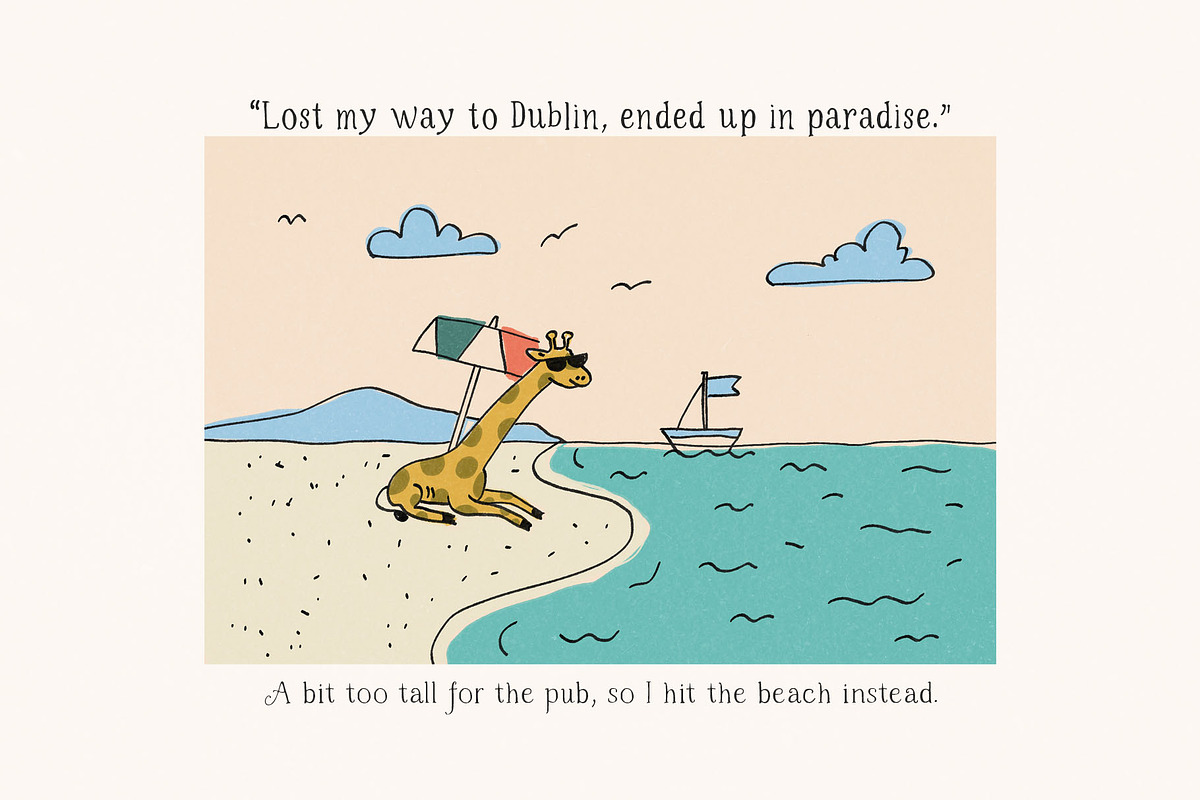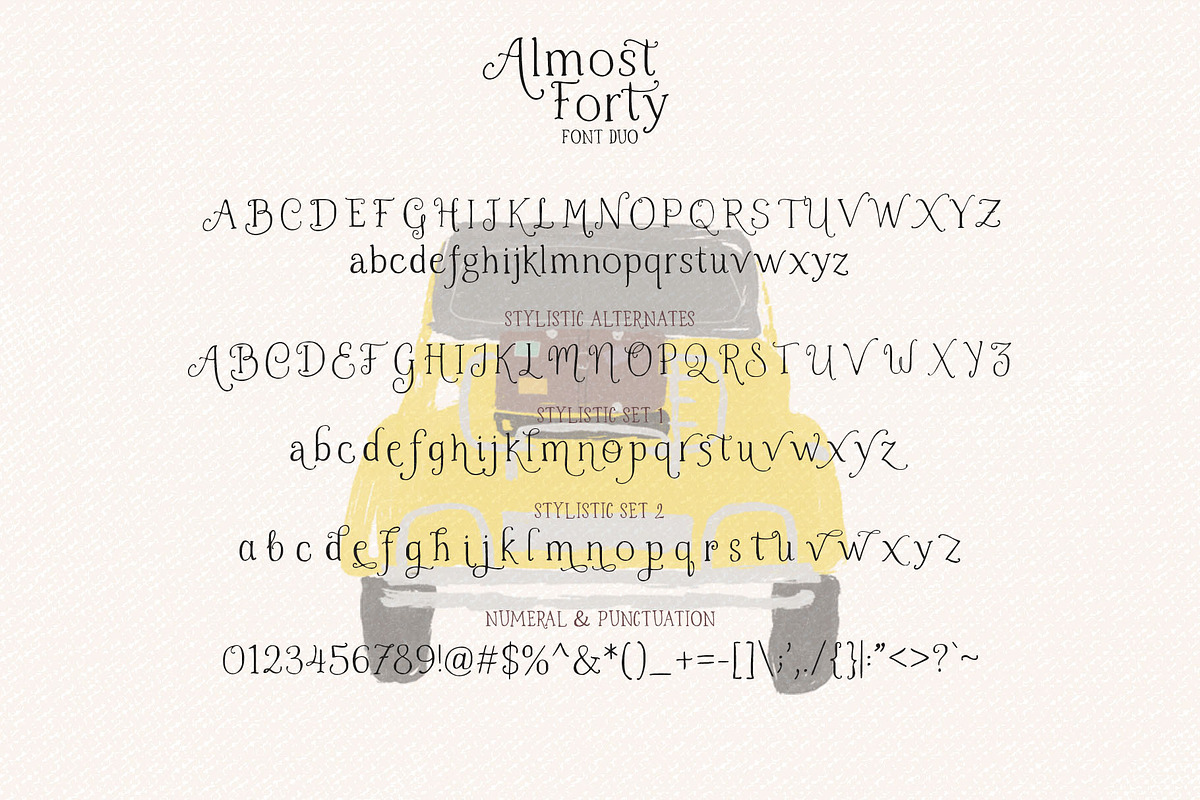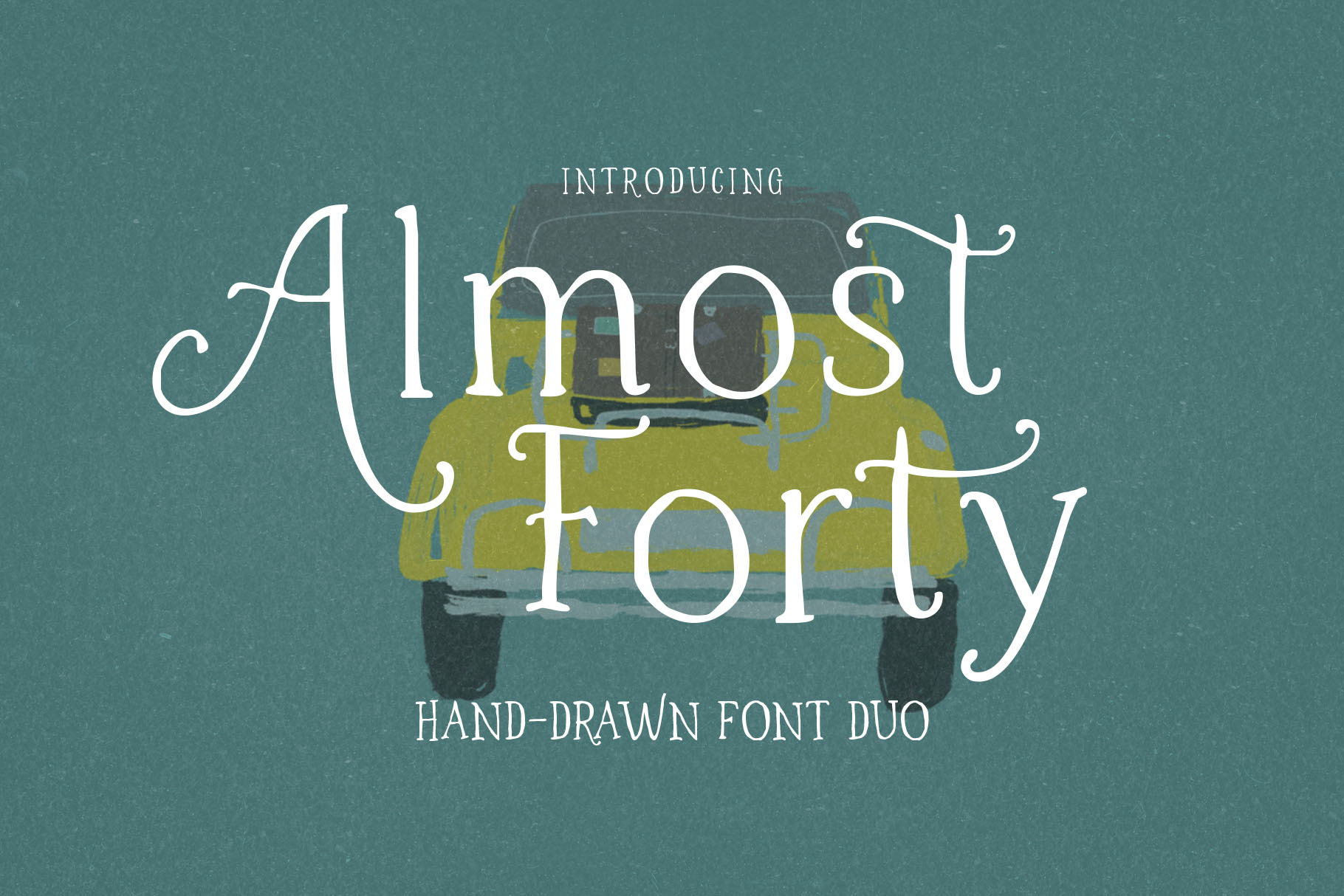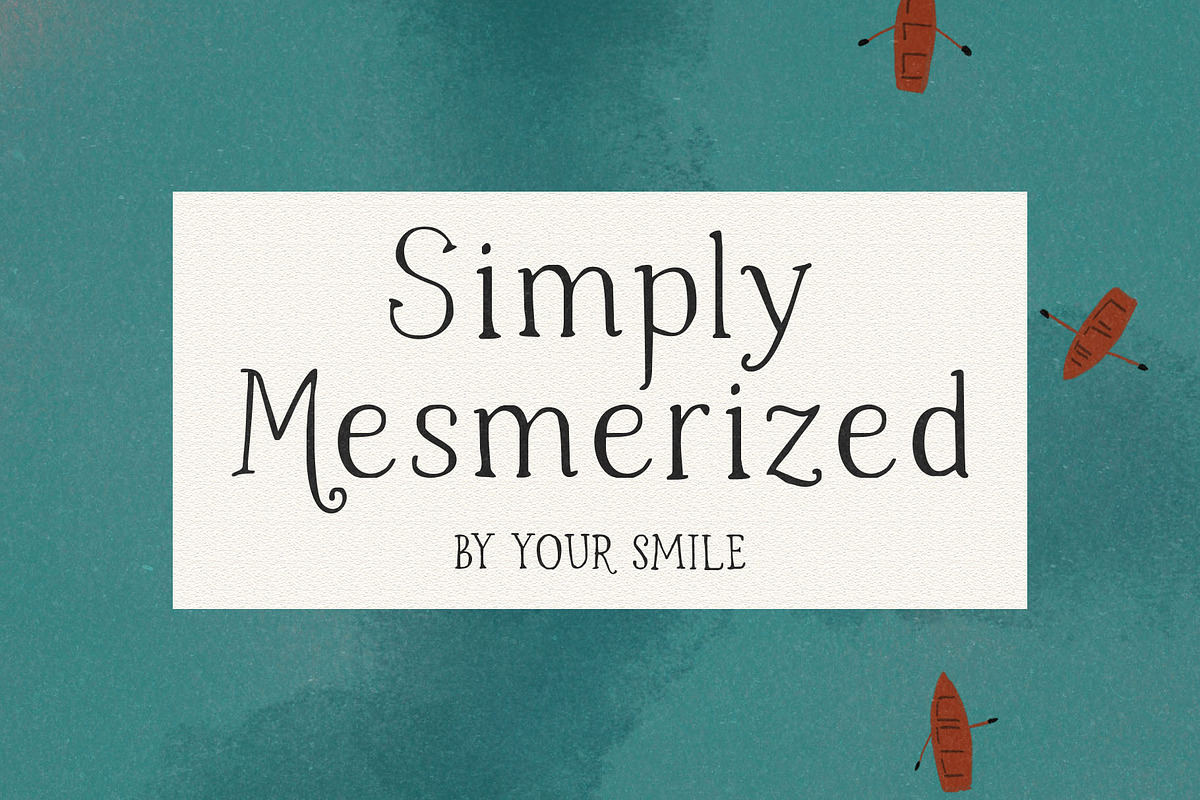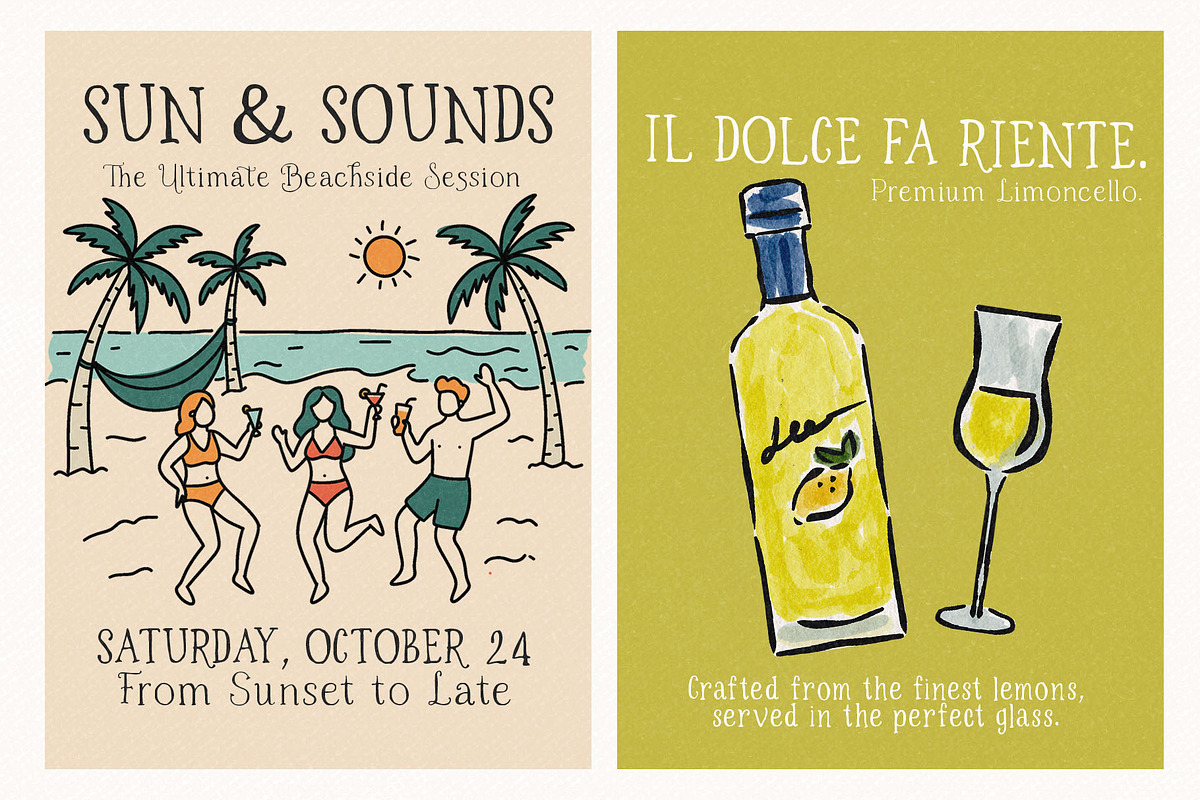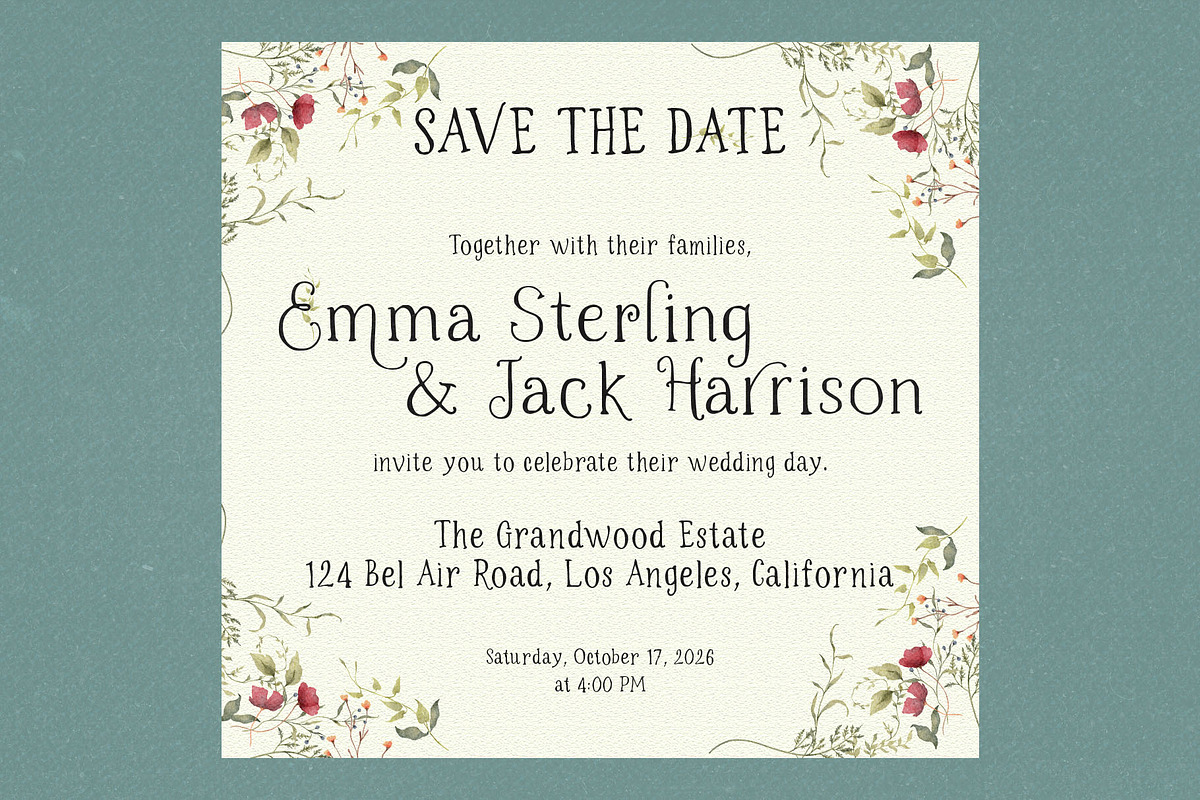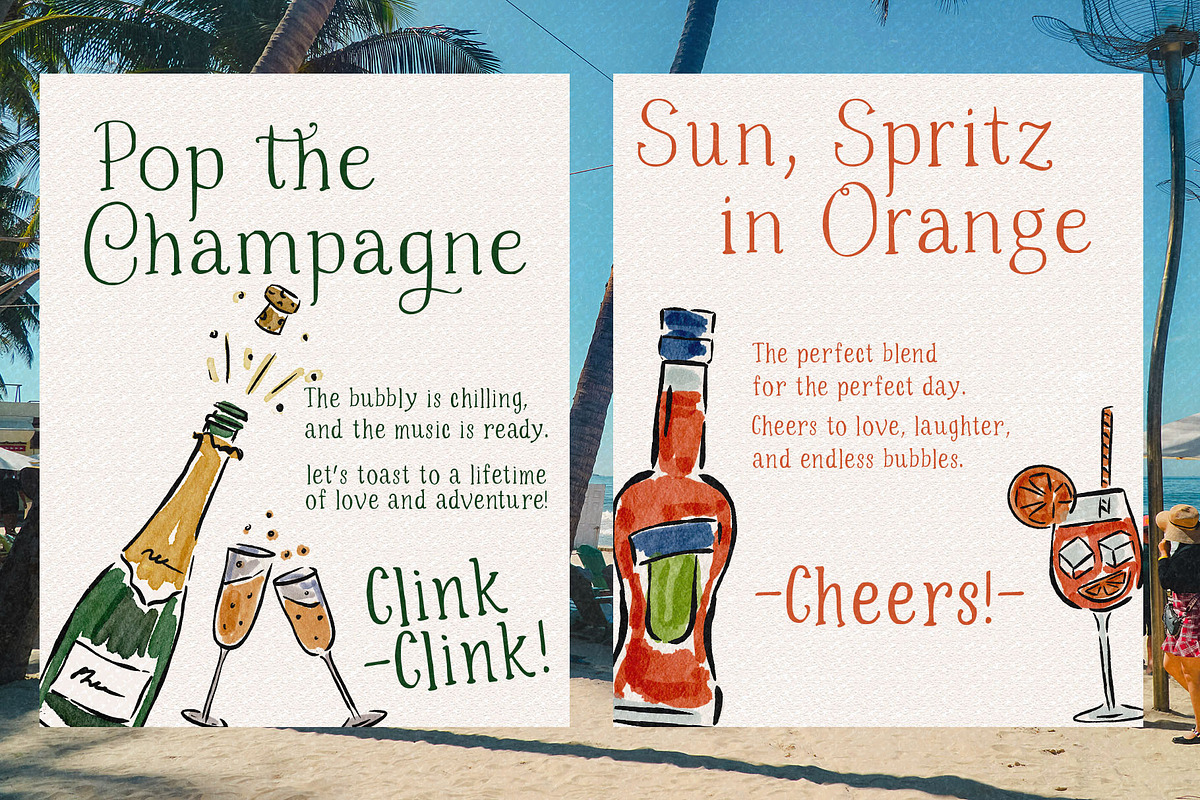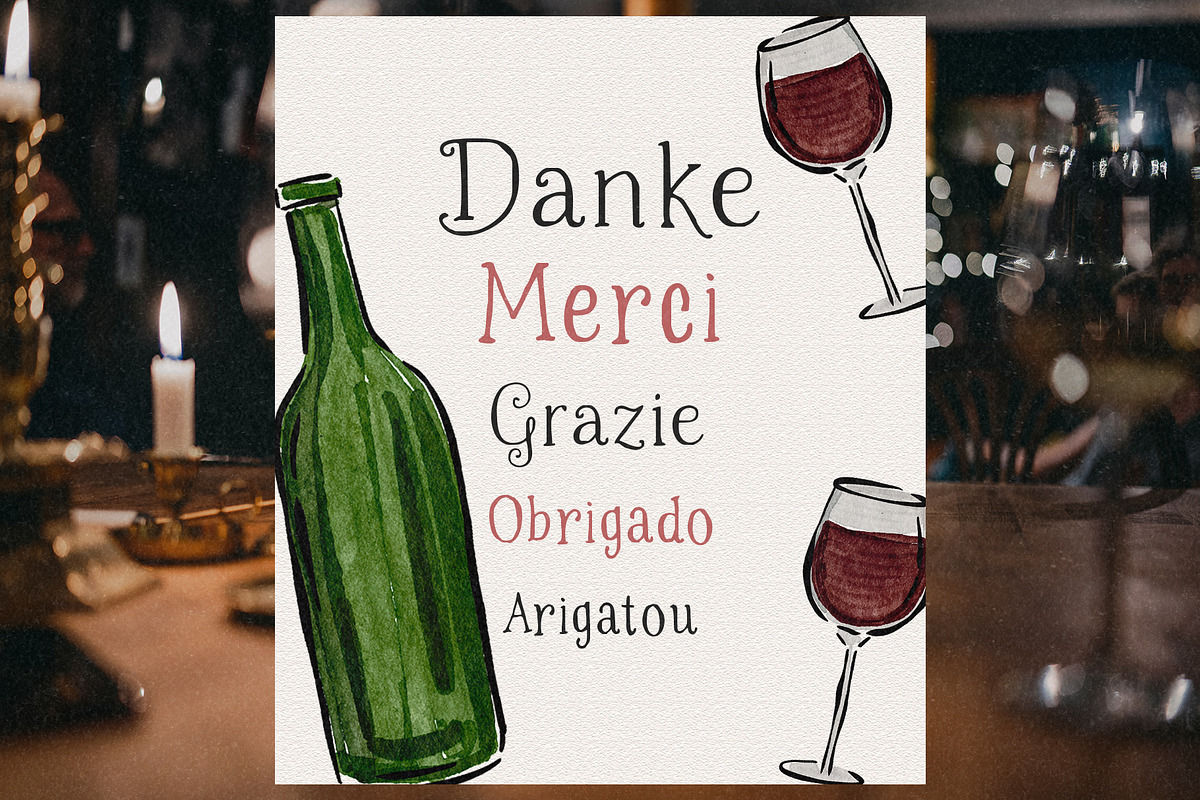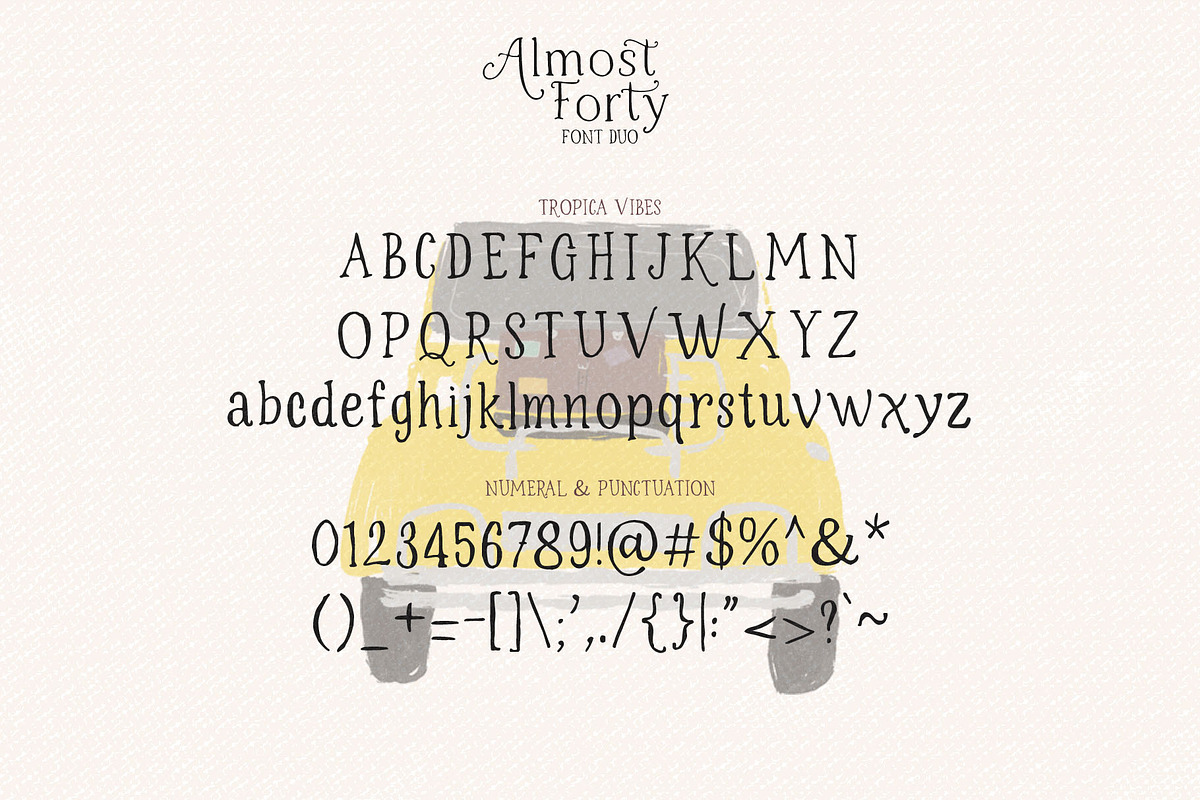
Almost Forty – Dual Font Set
Celebrate the beauty of perfectly imperfect design with Almost Forty, a premium dual-font collection crafted to bring authentic charm and laid-back energy to your projects. This set combines two distinct, hand-drawn styles that complement each other flawlessly.
Almost Forty: A charismatic, organic handwritten font packed with character. To give you ultimate creative control, it features advanced OpenType features, including Stylistic Alternates (SALT) and Stylistic Sets (SS01 & SS02), allowing you to switch up letterforms for a truly custom, hand-lettered look.
Tropica Vibes: The perfect companion font. A breezy, carefree, and casual hand-drawn style that instantly injects a warm, sunny, and tropical aesthetic into any layout.
Perfect For: This dual-font duo is incredibly versatile and ideal for branding, wedding invitations, summer event posters, packaging, social media graphics, quotes, merchandise, and any design that needs a personal, human touch.